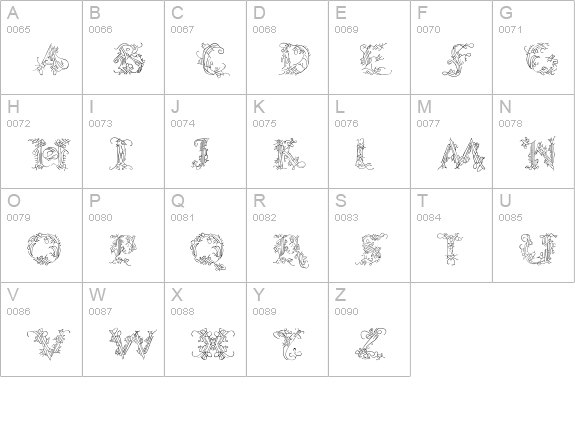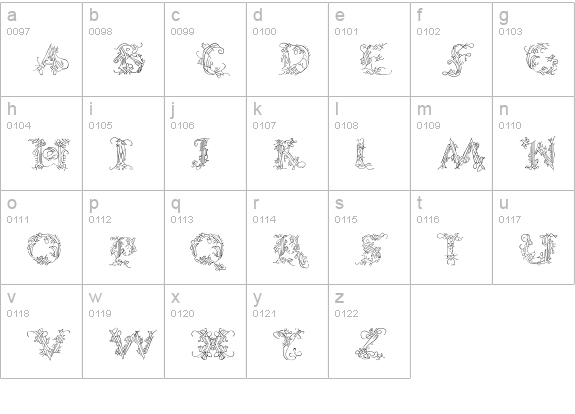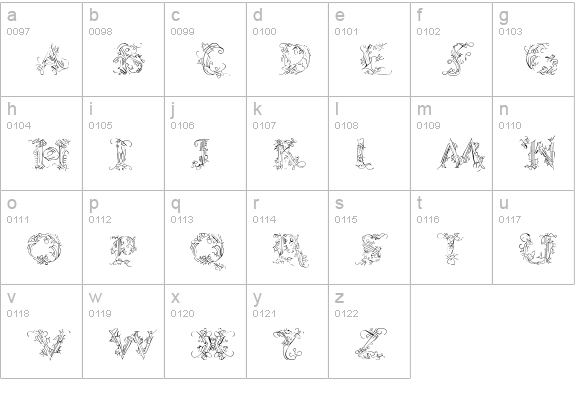
CalliPsoGrafia Font Details
Introducing CalliPsoGrafia font, a stunning and elegant typeface that exudes sophistication and charm. Inspired by calligraphy and graphic design, this font combines graceful strokes and intricate details to create a truly unique and stylish look. Perfect for adding a touch of luxury and refinement to your projects, CalliPsoGrafia font is sure to impress. What's even better is that CalliPsoGrafia font is available for free download at FontsMarket.com. This means that you can easily access this beautiful font and use it in your designs without any cost. Don't miss out on the opportunity to enhance your work with the beauty of CalliPsoGrafia font. Download it now and elevate your projects to new heights of creativity and elegance.